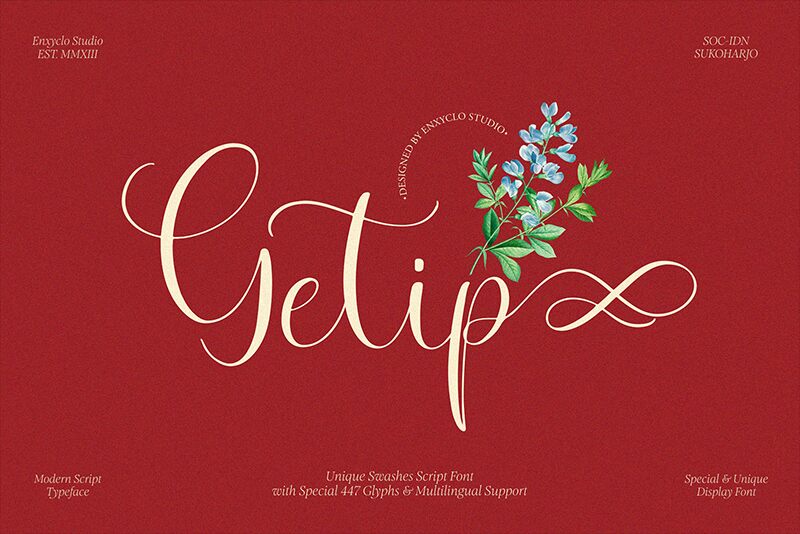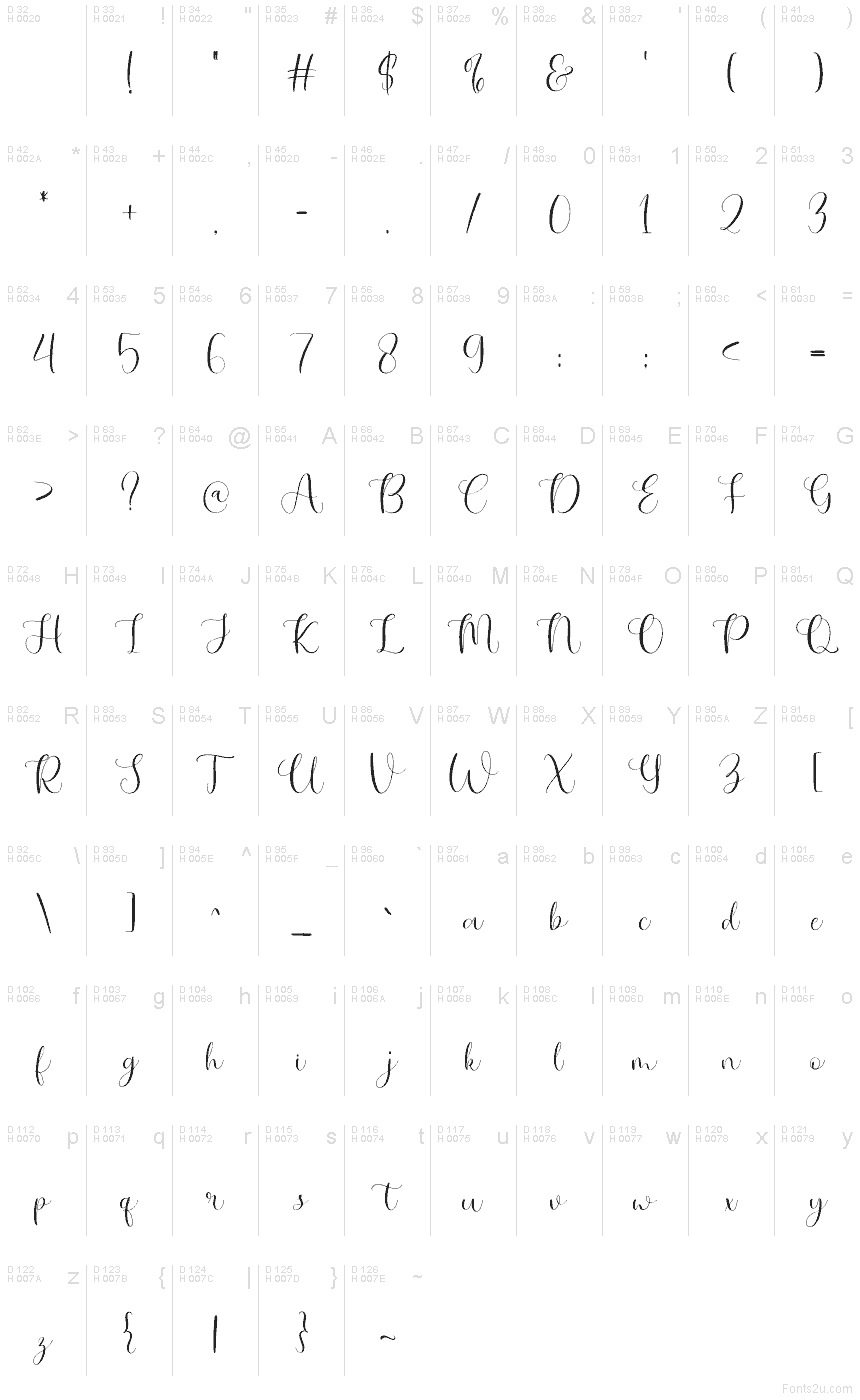
NCL Getip Demo
NCL Getip font by Enxyclo Studio is a free calligraphy typeface with airy loops and silky, brushy downstrokes. Its flowing rhythm and generous swashes give words a lifted, celebratory feel without turning ornate, so names and short phrases stay readable and delightful. The strokes feel inky and lively—light on the up, lush on the down—making headlines look hand-lettered rather than clipped.
Using NCL Getip, your work shines on wedding invitations, save‑the‑dates, boutique logos, beauty packaging, social media quotes, menu headers, and event signage. The spacing breathes nicely at larger sizes, so let it lead and keep copy short. Pair this free font with a clean geometric sans for details to balance the flourish with clarity.